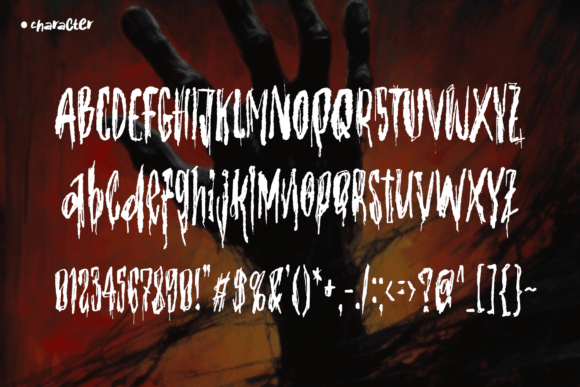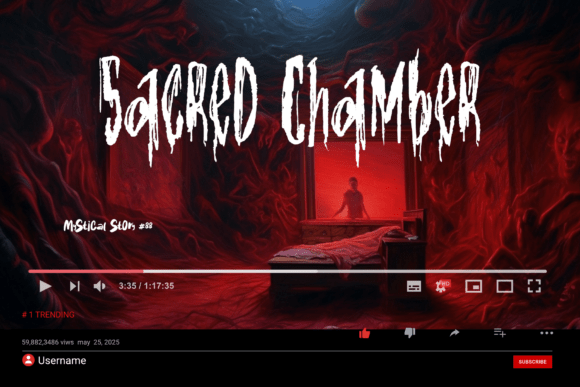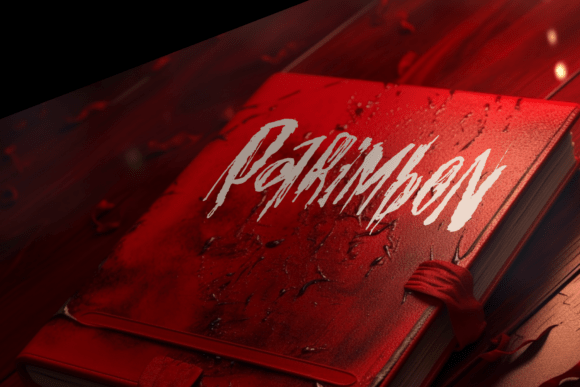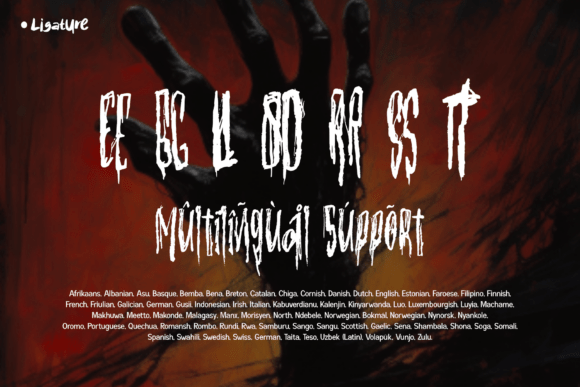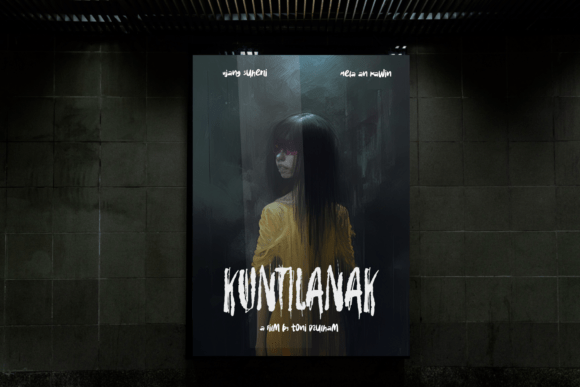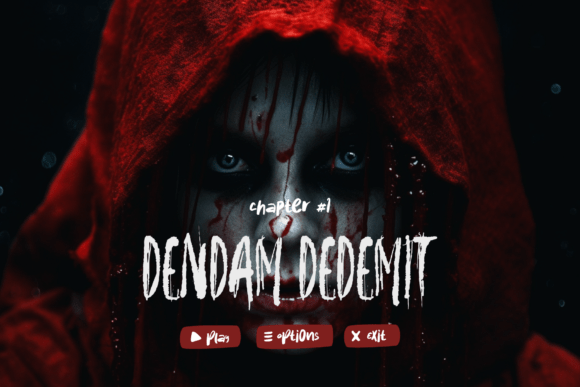
Introduction to Ephemeral Nightmares Font
Have you ever been working on a design project, and the perfect font just seems to elude you? The atmosphere is off, the message isn’t conveyed, and you’re left with a creative void. I’ve been there too, and that’s why I’m excited to introduce you to the Ephemeral Nightmares Font – a game-changer for designers who crave a truly immersive experience.
This font is more than just a design resource; it’s an experience that will transport your audience into a world of darkness and uncertainty. With its sleek, bloody texture and sharp, irregular lines, the Ephemeral Nightmares Font is the perfect addition to any horror or mystery project.
Key Features of Ephemeral Nightmares Font
- High-quality design resource ideal for creative projects requiring a unique, eerie aesthetic.
- Unique, hand-crafted characters and glyphs create an otherworldly atmosphere, perfect for horror-themed designs or creative expressions.
Honest Review: Ephemeral Nightmares Font
- High quality design
- Only available in a limited number of weights and styles
- Not ideal for large blocks of text due to its ornate design
Overall, I’m impressed with the Ephemeral Nightmares Font. It’s a great addition to any designer’s toolkit, and I can see it being a hit for creative projects that require a touch of elegance and sophistication. ⚠️ Just be aware of its limitations, and you’ll be all set to create some stunning designs with this font. ✨
The Ephemeral Nightmares Font is ideal for a variety of design projects, including:
- Brand identity design
- Digital design